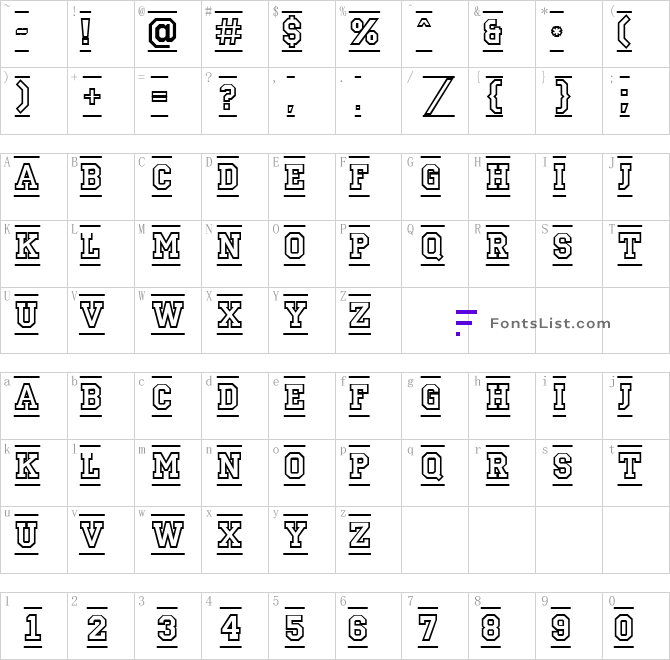
- Font Name:a_CampusOtlDcFr
a_CampusOtlDcFr.ttf is a very beautiful artistic font, a_CampusOtlDcFr.ttf is widely used in the design and printing of various books and pictures,a_CampusOtlDcFr.ttf has a strong visual impact,a_CampusOtlDcFr.ttf is a commonly used font in newspapers, magazines and books, and is used in posters, e-commerce Poster design, store design, logo design, font design and other fields.a_CampusOtlDcFr.